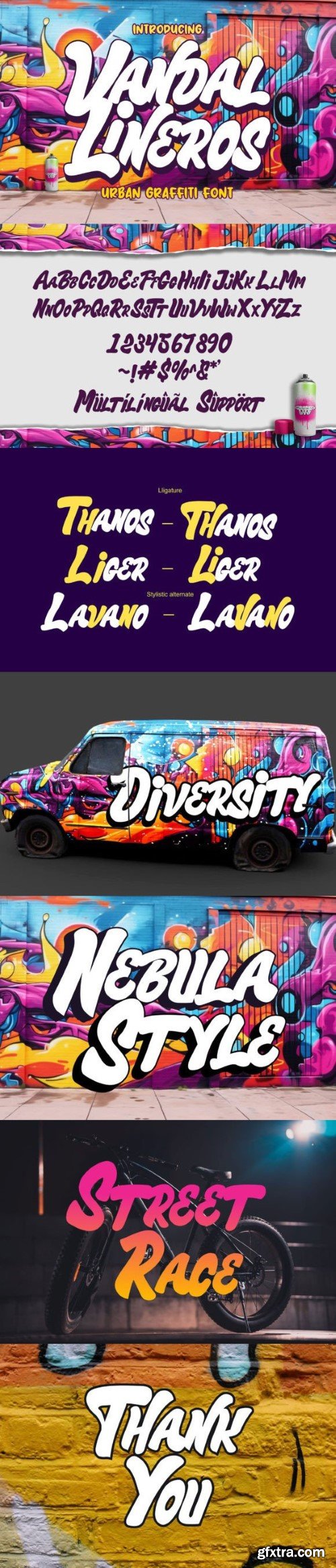
梵泰尔林洛尔字体
Vandal Linerous sounds like a cool graffiti typeface. Graffiti fonts often have a unique and artistic style that can add an edgy and urban feel to various design projects. If you have any specific questions or if there’s anything specific you’d like to know or discuss about graffiti fonts or design, feel free to ask!